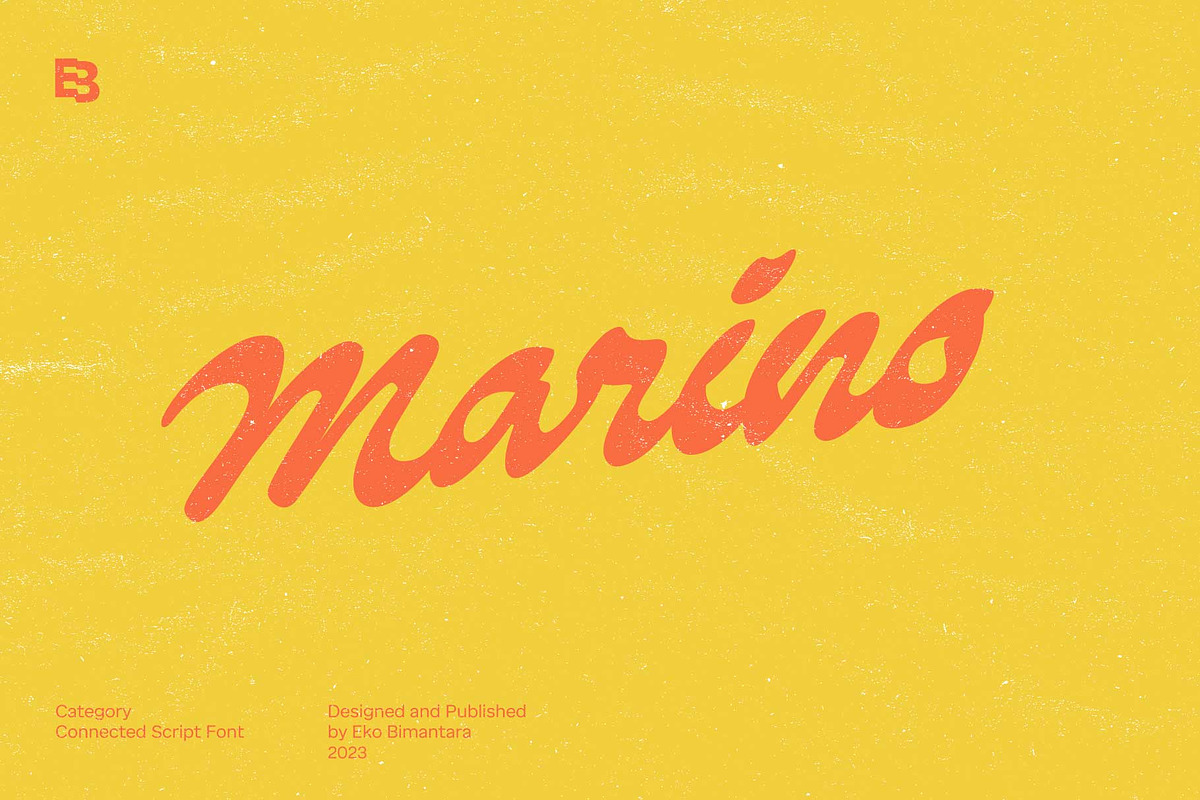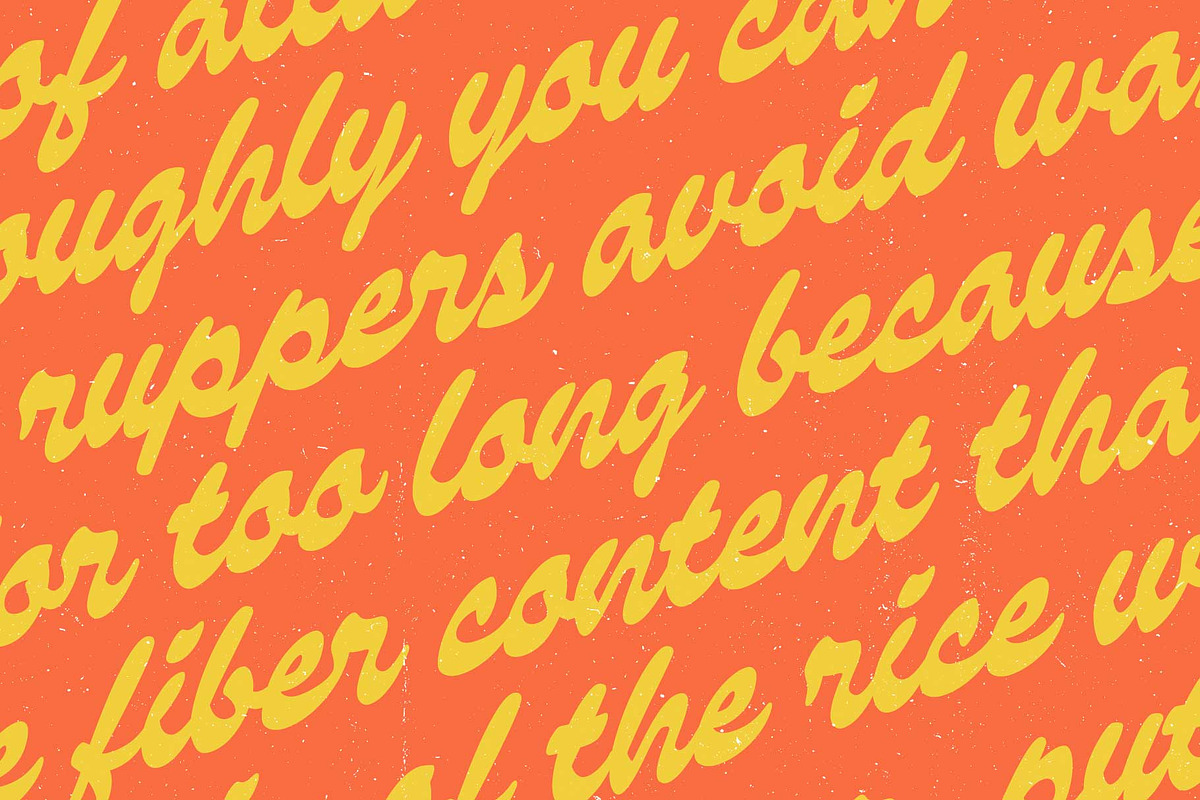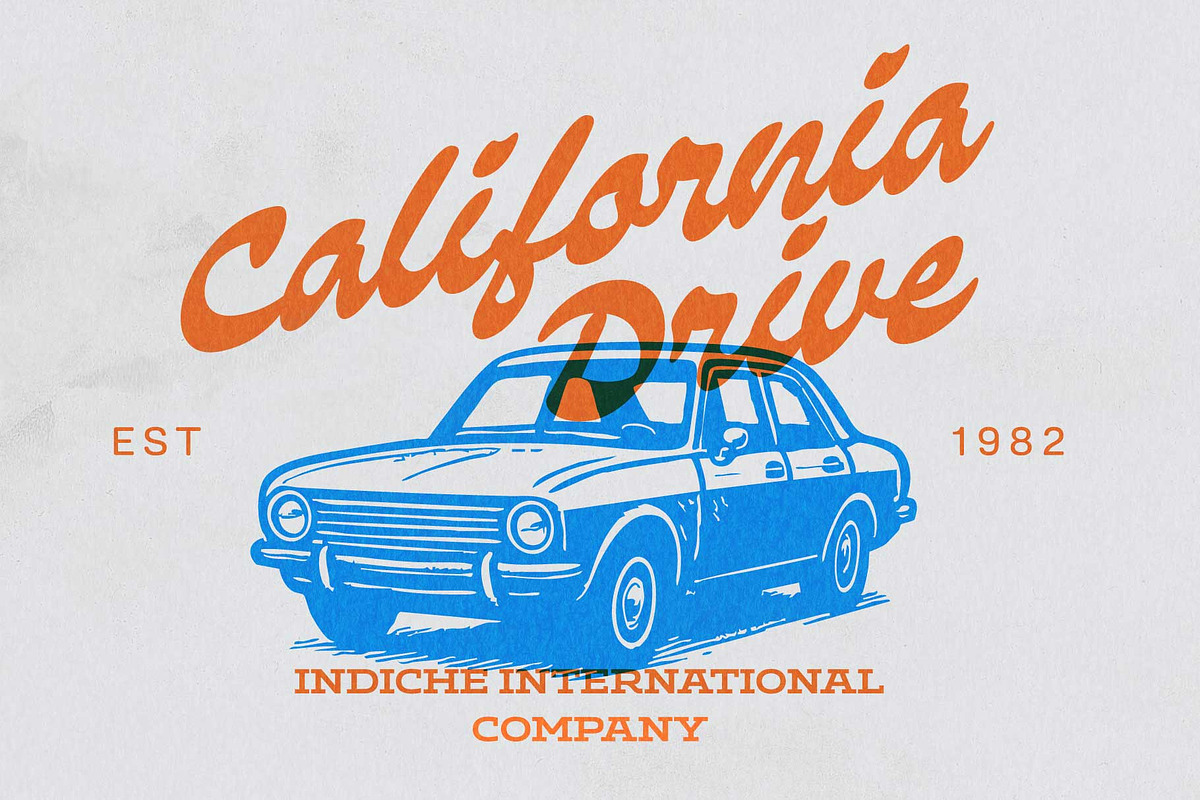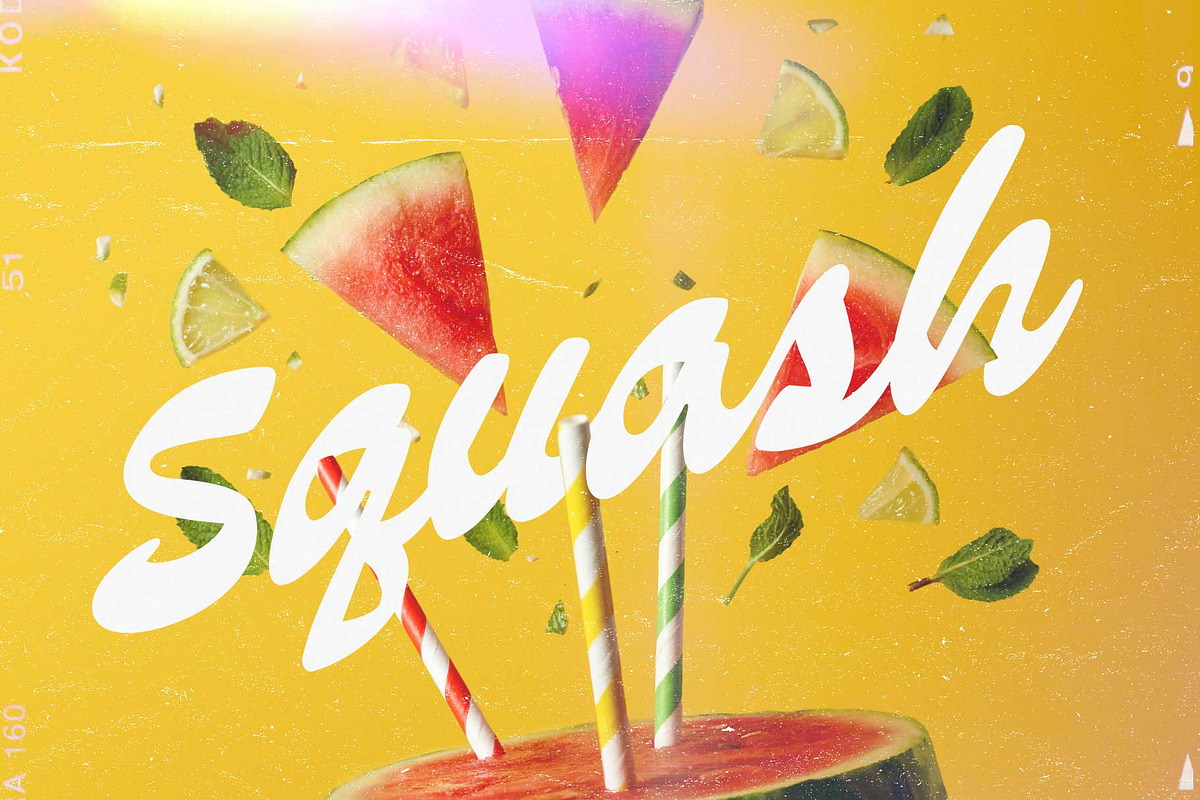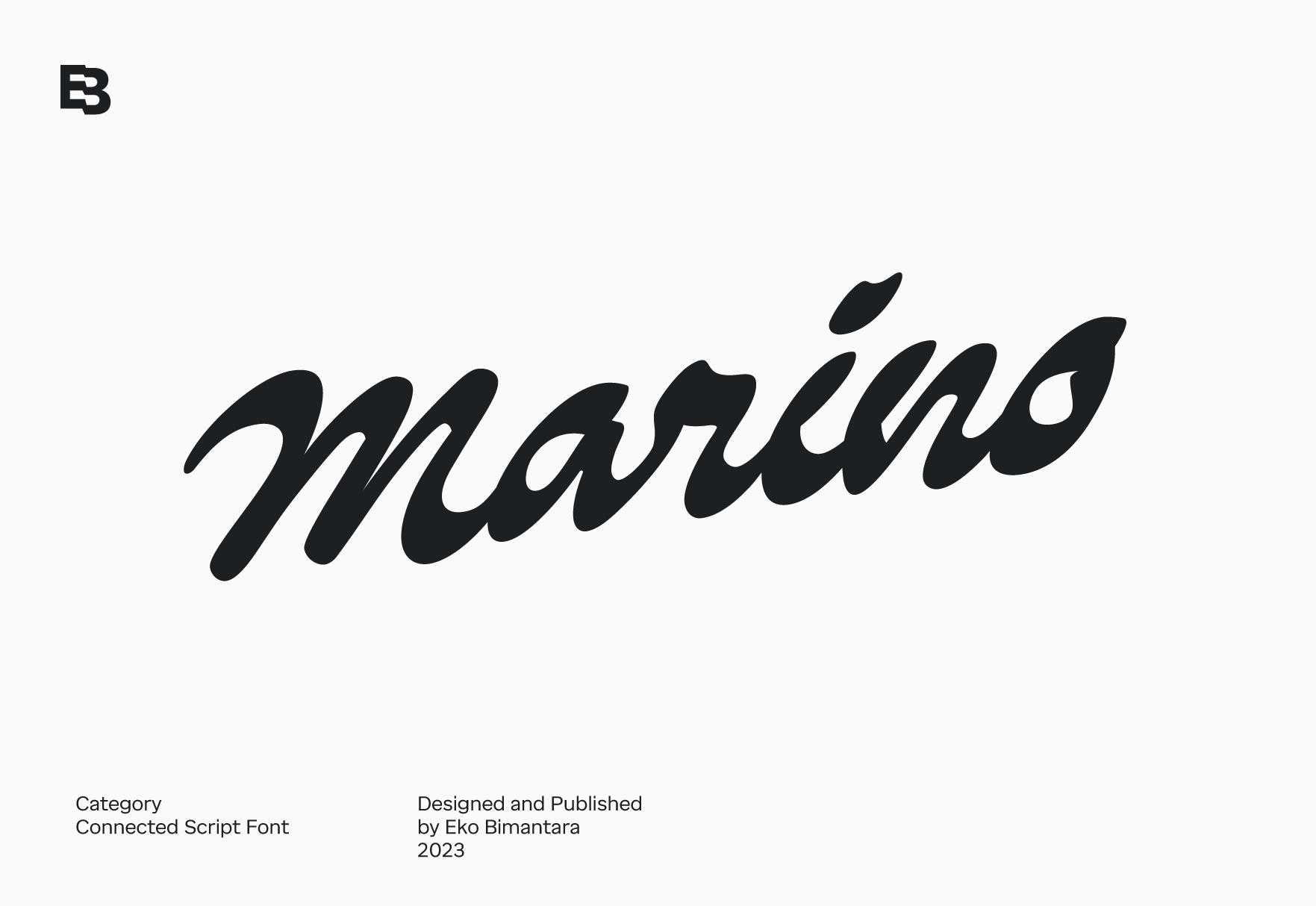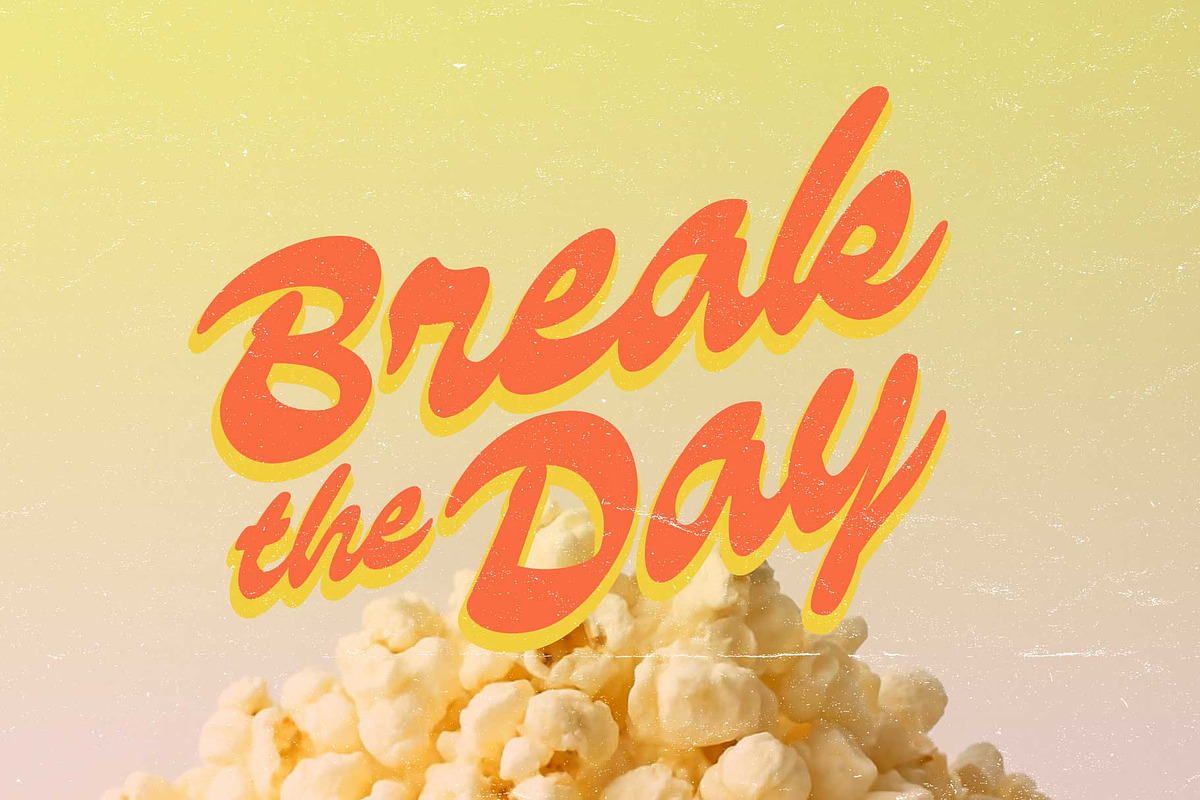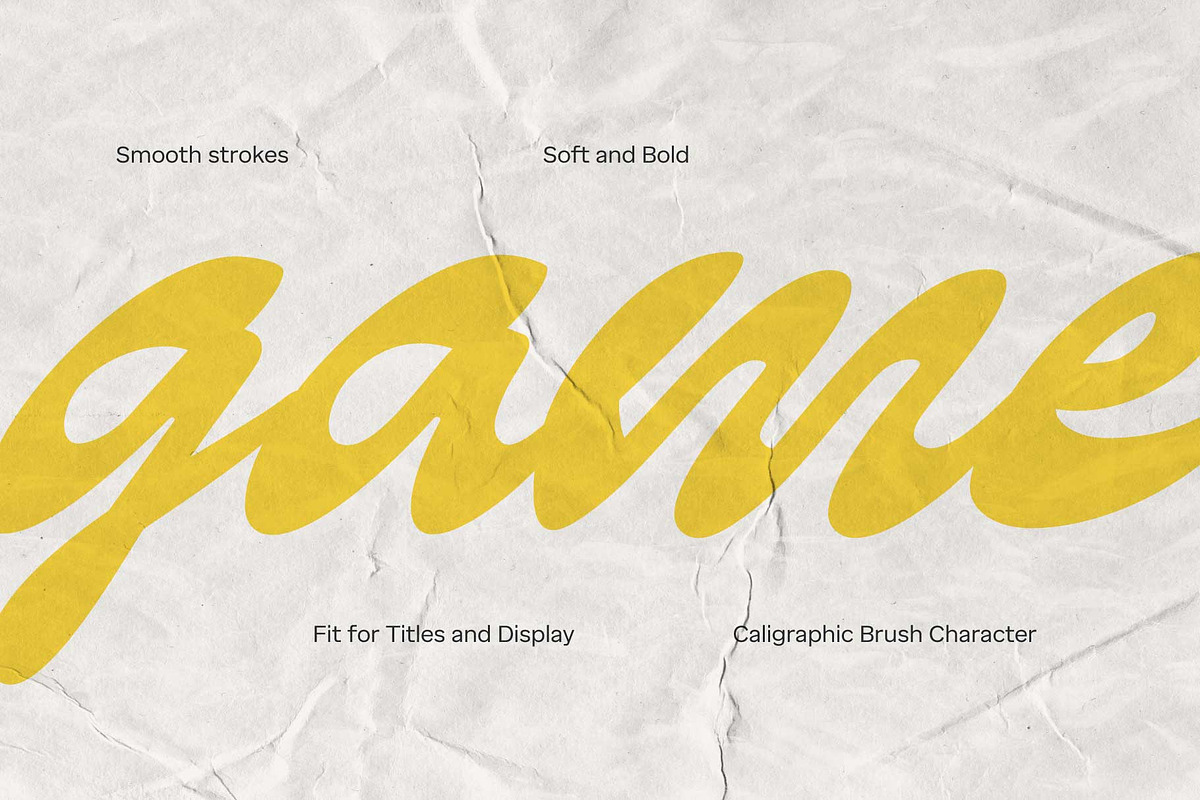
Marino; Brush Script Display Font
Marino, a bold connected brush script font that exudes softness and ease. Its smooth and versatile caligraphic strokes offer expressive possibilities for various layout designs, logos, websites, brand identities, product packaging, and broad graphic design and creative purposes. Whether for display, large sizes, or captivating headers, Marino is the ideal choice to add a touch of artistry and flair to your projects.